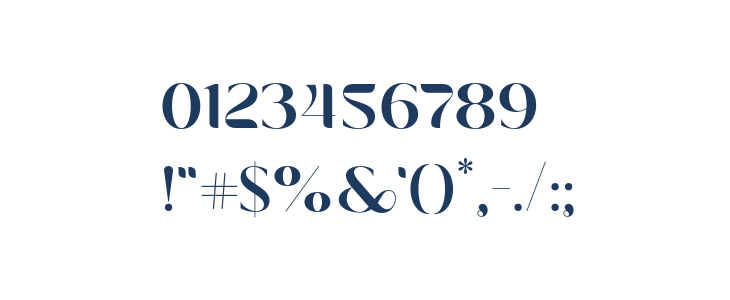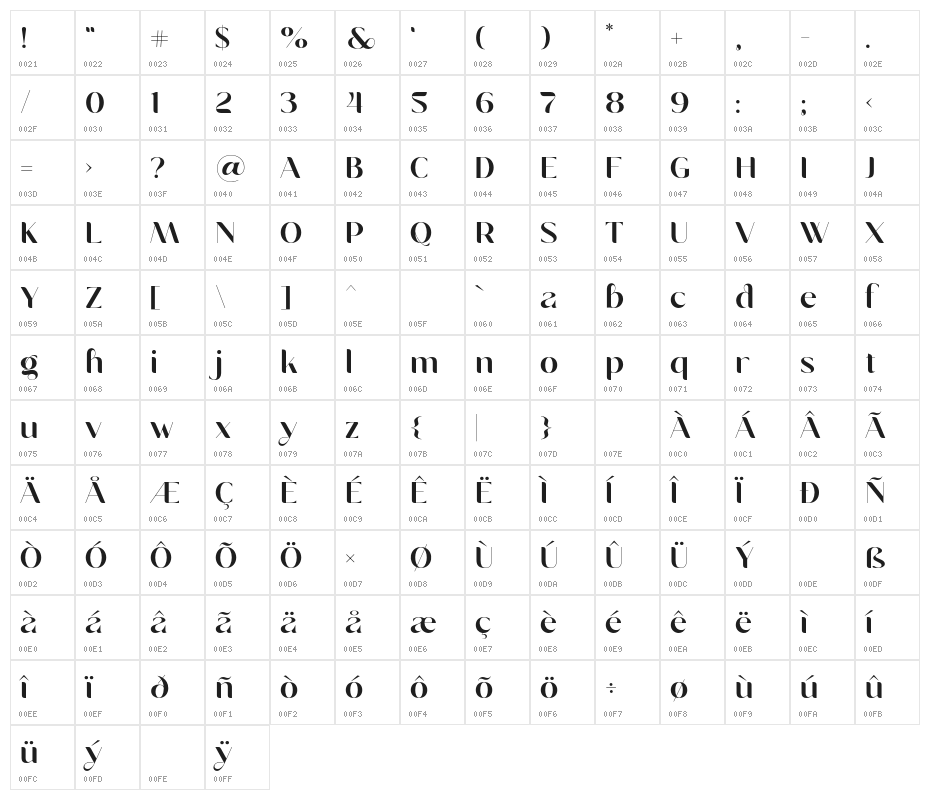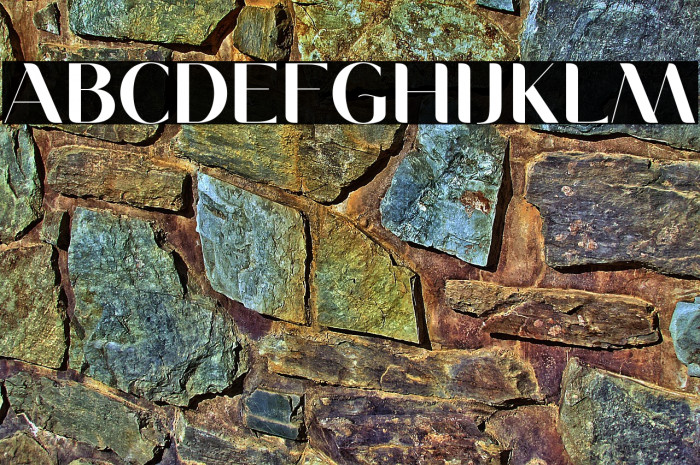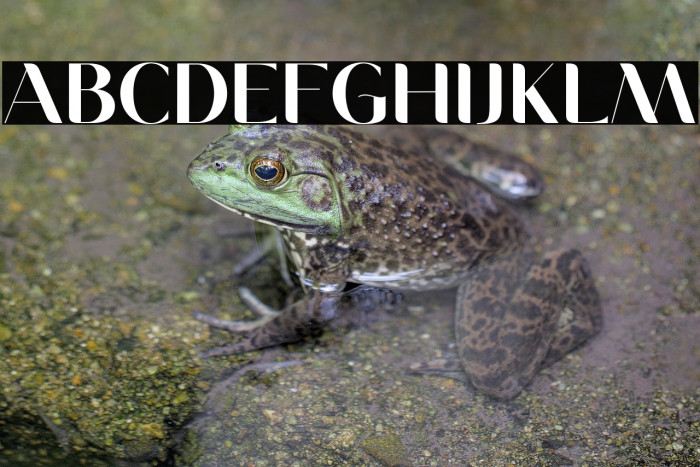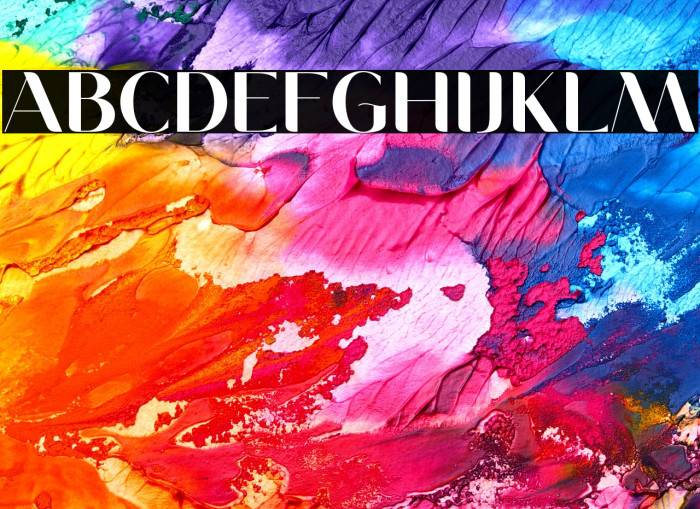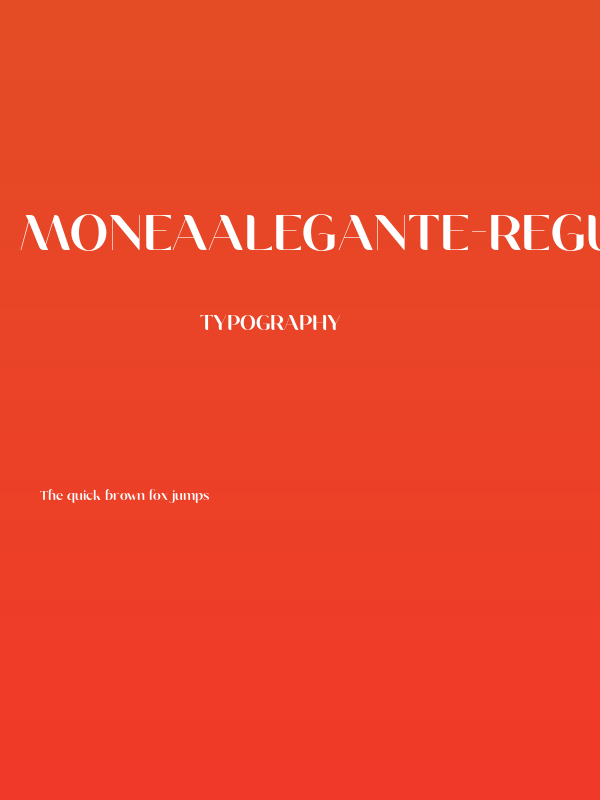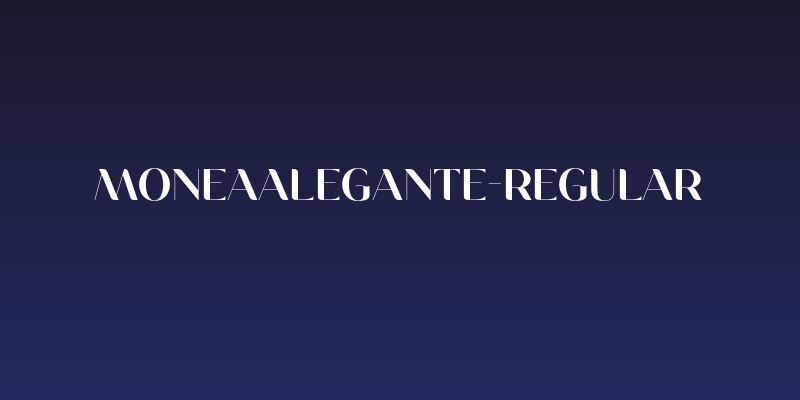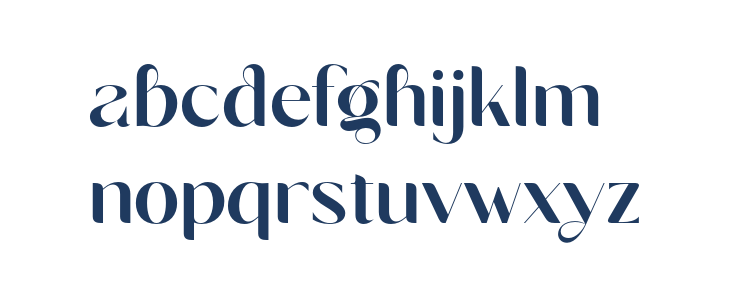
MoneaAlegante-Regular Font
MoneaAlegante-Regular Description
This font features a sophisticated and elegant design, characterized by its high contrast between thick and thin strokes. The uppercase letters exhibit a modern flair with sharp, clean lines and a slight slant, adding a dynamic feel. The lowercase letters maintain a smooth, flowing appearance, enhancing readability while retaining a stylish look. The numerals are distinct and bold, ensuring clarity in numerical data. Special characters are crafted with precision, maintaining the overall aesthetic of the font. This typeface is perfect for projects that require a touch of elegance and modernity.
| Overall Style | Elegant and Modern |
| Proposed Projects | Ideal for luxury branding, fashion magazines, elegant invitations, and high-end product packaging. |